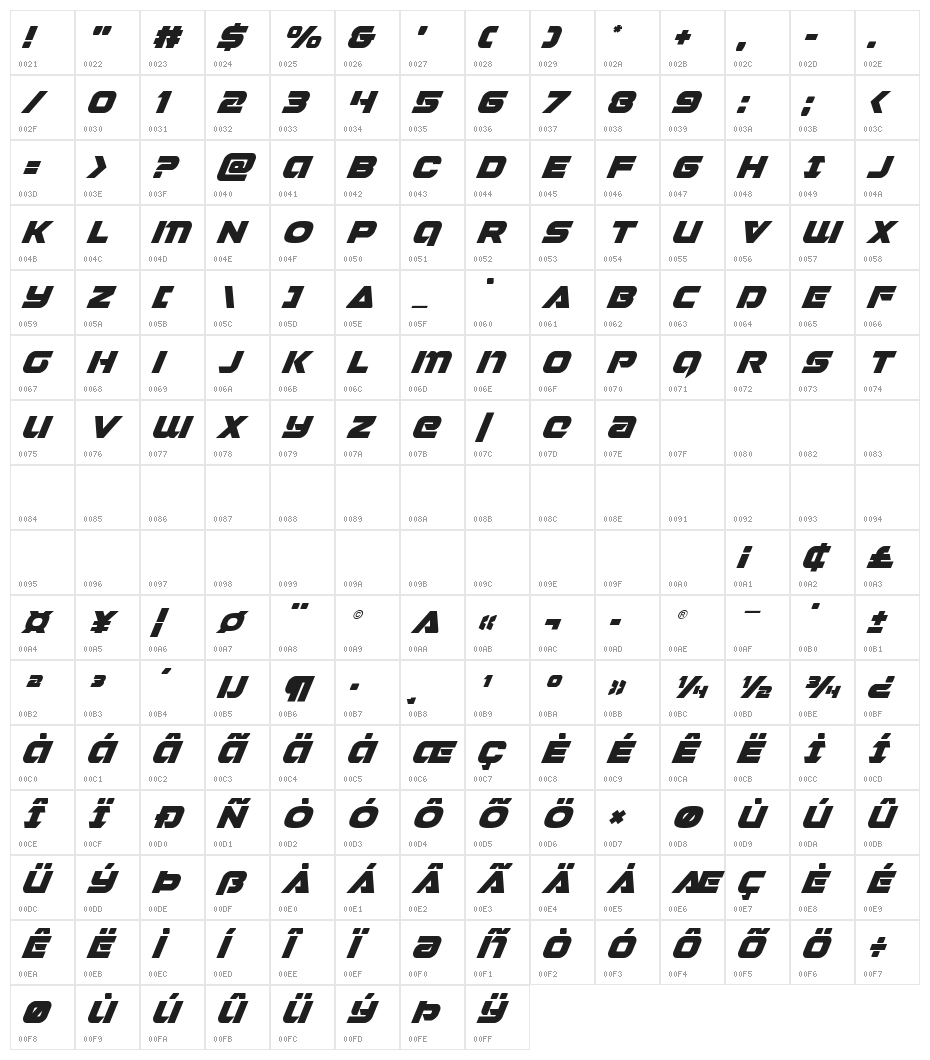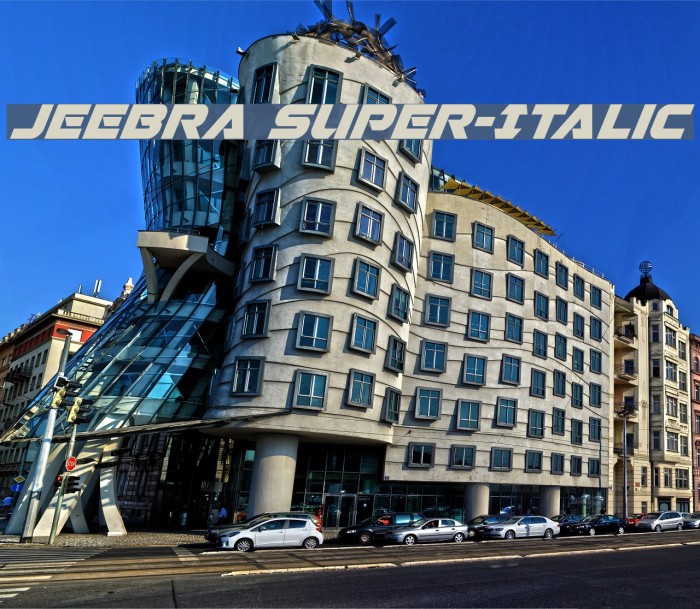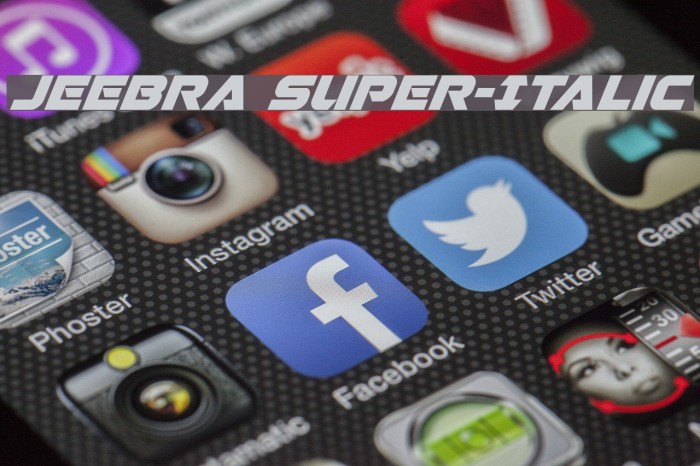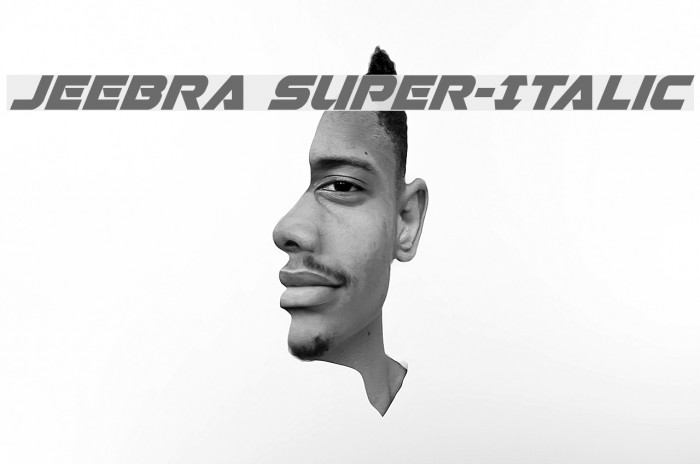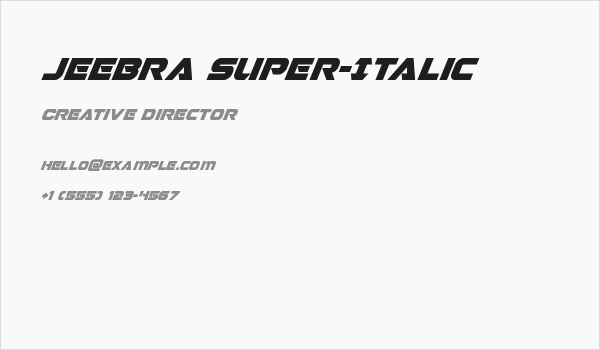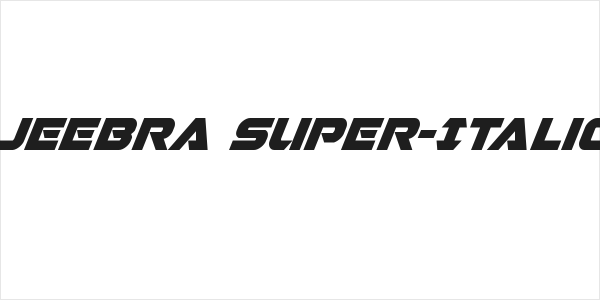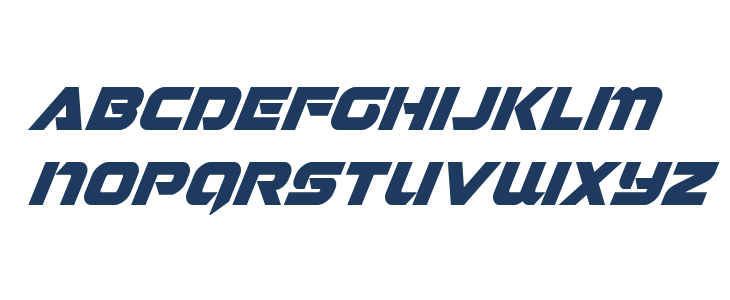
Jeebra Super-Italic Font
Jeebra Super-Italic Description
This font features a bold, italicized style with a modern and dynamic appearance. The characters are slanted forward, giving a sense of motion and speed. The strokes are thick and consistent, providing a strong visual impact. The design includes sharp angles and clean lines, making it suitable for attention-grabbing headlines and titles. The uppercase and lowercase letters maintain a uniform style, while the numerals and special characters complement the overall aesthetic. The font's boldness and italic nature make it stand out, ideal for projects that require a contemporary and energetic look.
| Proposed Projects | Ideal for sports branding, automotive advertisements, dynamic posters, and modern website headers. |